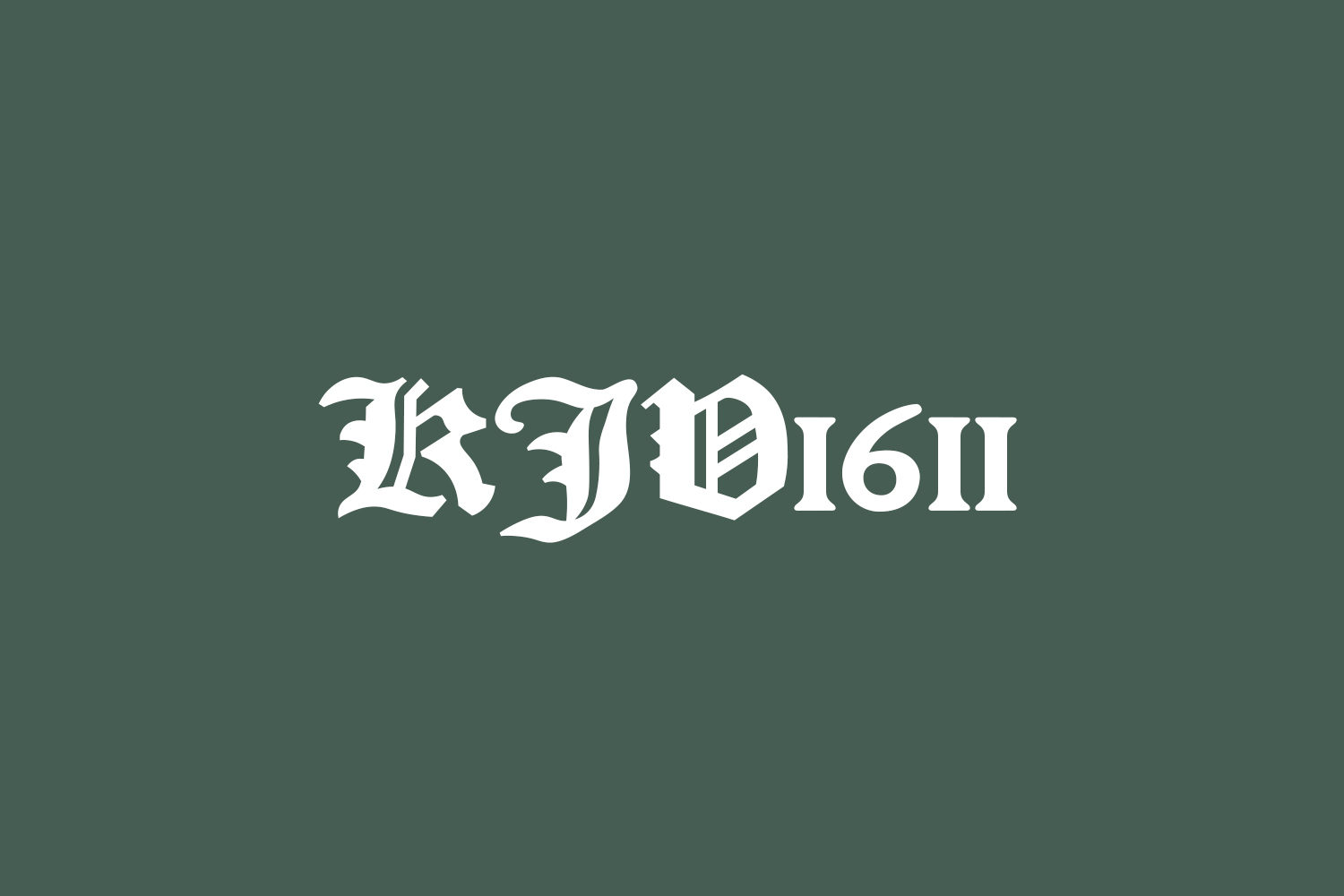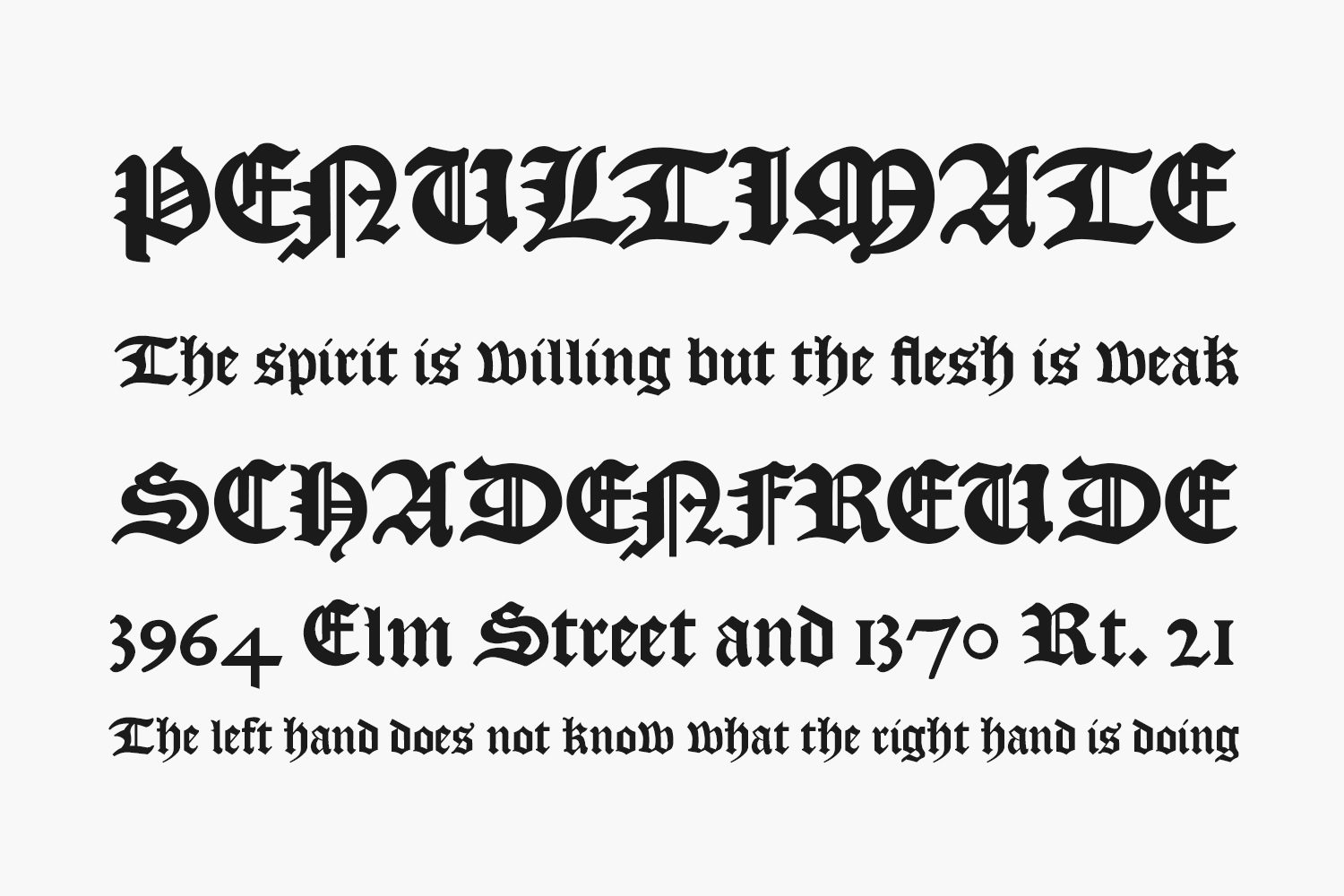
KJV1611 Free Font is a libre digital recreation of the font found in one of the moſt famous books in the Engliſh language, the 1611 King James Verſion of the Holy Bible. It is licenſed under the S.J.L Open Font Licenſe.
This font can be used to typeset both in the medieual spelling style, or in the modern style. The alphabet is not static ; some glyphs that we use today did not exist in the 17th century. For example, capital “V”, capital “I”, and the “@” sign. Based on other blackletter fonts made by contemporaries of the scribes, and other modern recreations of other blackletter fonts, I made up glyphs for these modern symbols/letters.